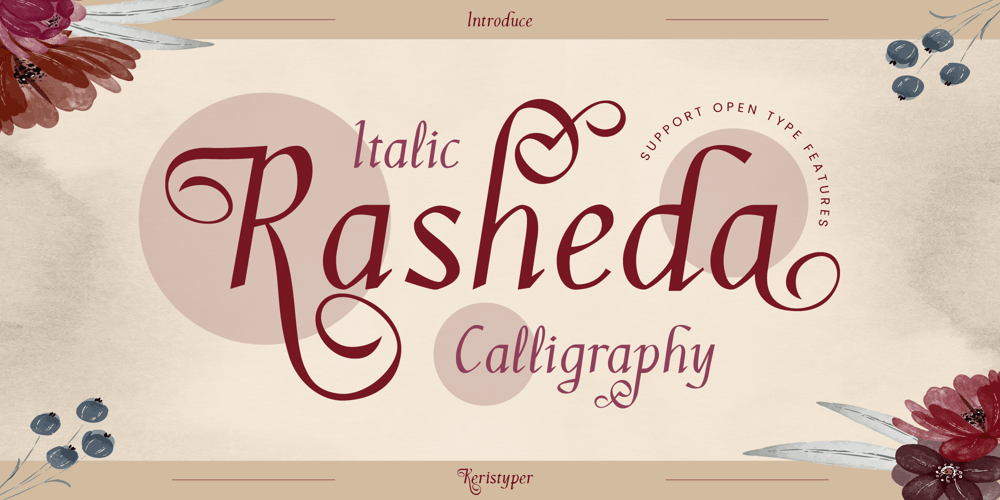
Rasheda
Rasheda font
Rasheda Font Family was designed by Tezar Tantular and published by Keristyper Studio. Rasheda contains 1 styles and family package options. Rasheda is a beautiful italic font. Inspired by classic cursive calligraphy from the Renaissance era in the 8th Century. This font is good for logo design, Social media, Movie Titles, Books Titles, short text even long text letters, and good for your secondary text font with script, sans, or serif.**Featured:*** Standard Uppercase & Lowercase* Numeral & Punctuation* Multilingual : ä ö ü Ä Ö Ü ß ¿ ¡* Alternate & Ligature* PUA encodedWe recommend programs that support the OpenType feature and the Glyphs panel such as Adobe applications or Corel Draw. so you can use all the variations of the glyphs.Hope you enjoy our fonts!